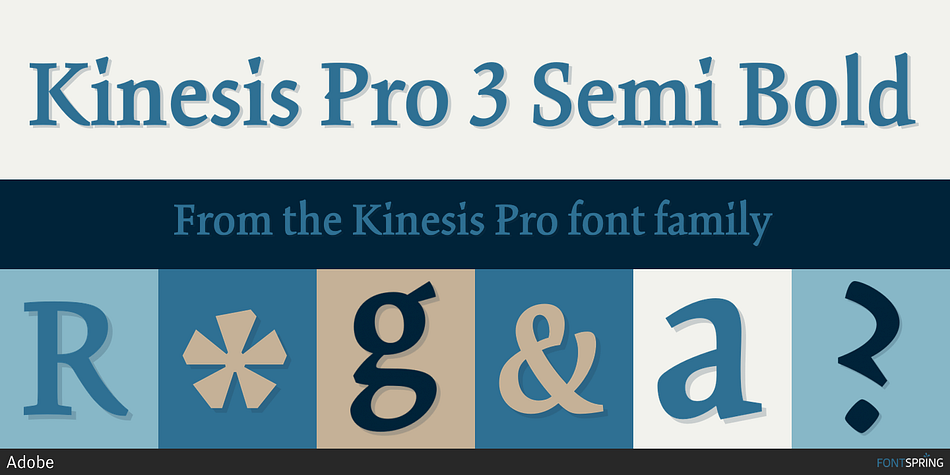
Kinesis Pro 3 Semi Bold
Designed by Mark Jamra, Kinesis Pro is a serif font family. This typeface has ten styles and was published by Adobe.
Kinesis is a unique and lively typeface family designed by Mark Jamra.
Kinesis is a unique and lively typeface family designed by Mark Jamra. The truly kinetic nature of this design makes it as suitable for display settings as for longer blocks of energetic text. Balancing unconventional forms and expressive calligraphic lettering with legible text typeface characteristics, Kinesis offers a wide range of weights and a vigorous personality for book text and magazine ad copy, as well as larger formats such as bulletins, posters, and packaging.